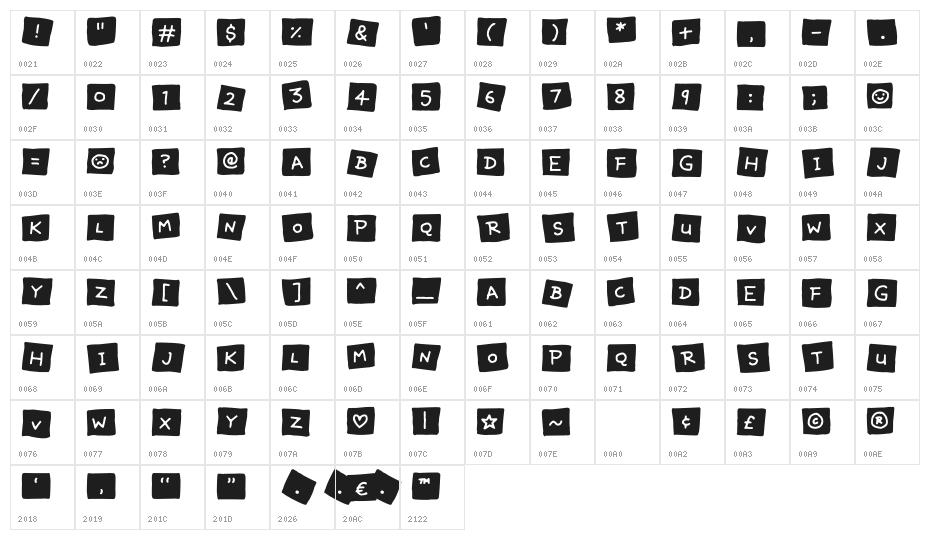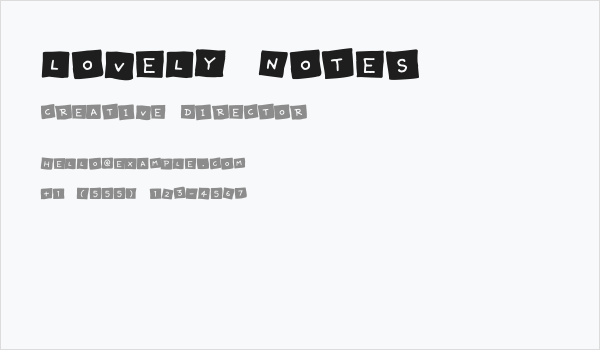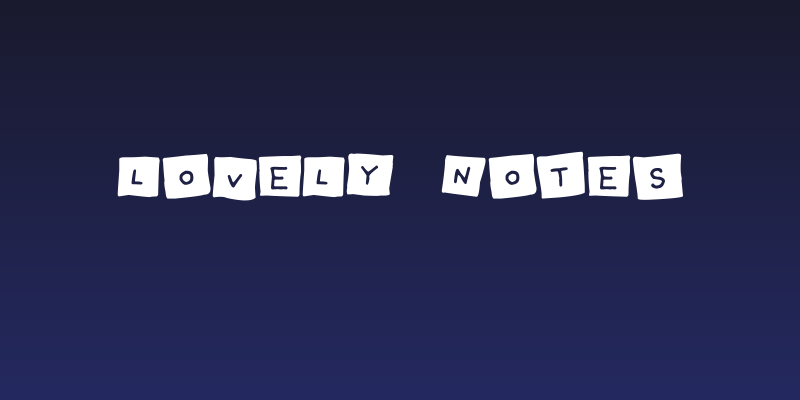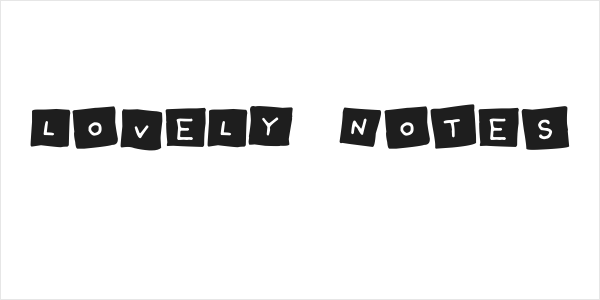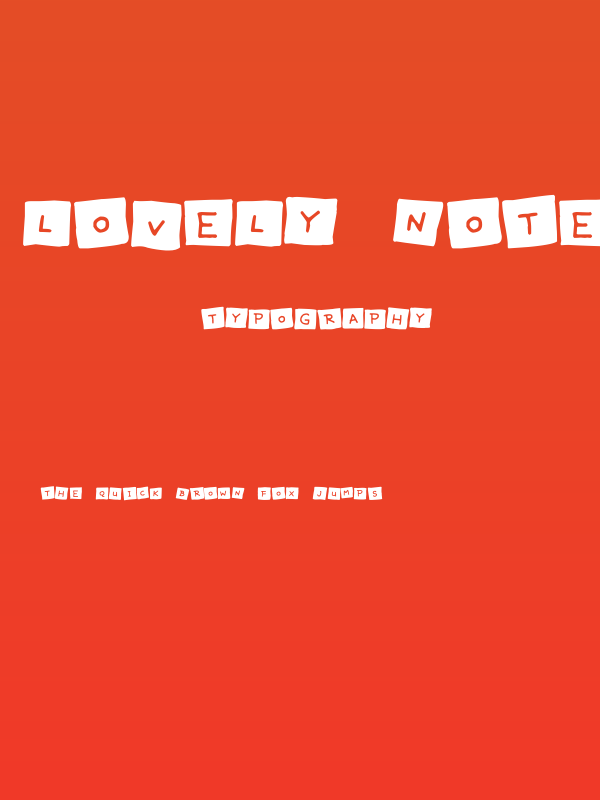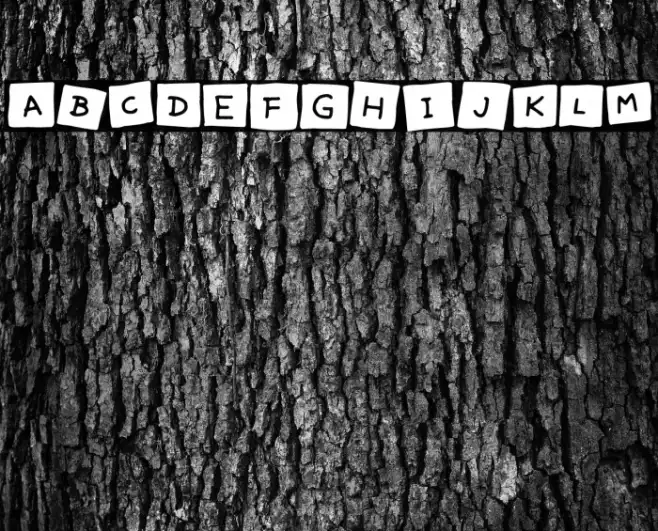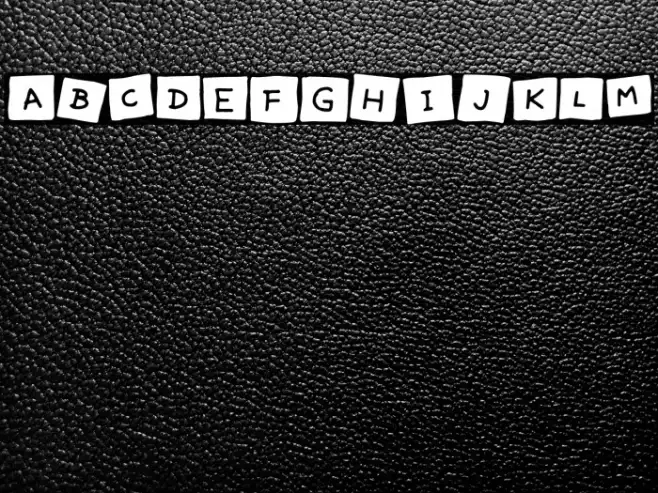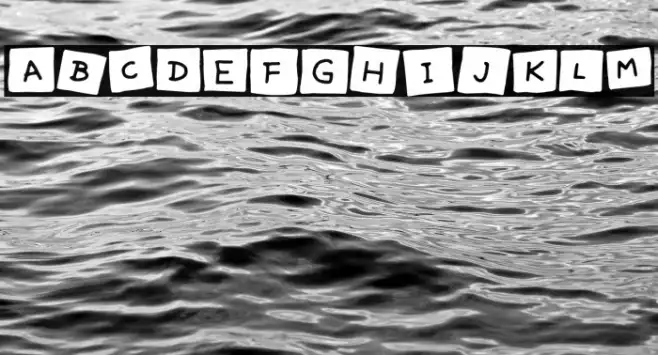
Lovely Notes Font
Lovely Notes Description
This playful and whimsical font features characters that appear to be hand-drawn on individual tiles, giving it a unique and casual appearance. Each letter and number is enclosed in a slightly irregular square, adding to the charm and informal style. The font is bold, with a consistent thickness throughout each character, making it highly legible while maintaining a fun and quirky aesthetic. The spacing between characters is normal, allowing for easy readability. This font is perfect for projects that require a touch of creativity and informality, such as children's books, playful invitations, or artistic posters.
| Overall Style | Whimsical, Playful |
| Use Case | Headlines, Creative projects, Informal designs |
| Proposed Projects | Children's books, playful invitations, artistic posters, scrapbooking, and creative branding. |